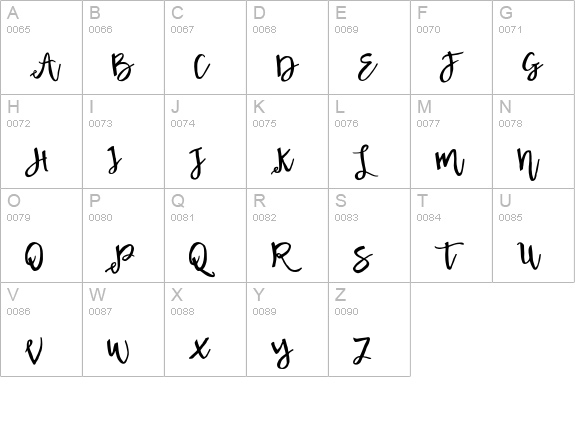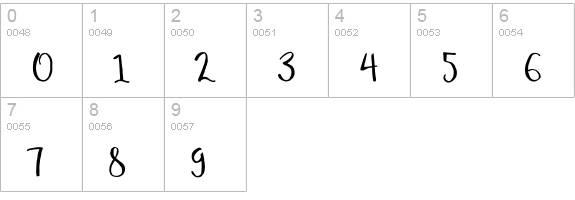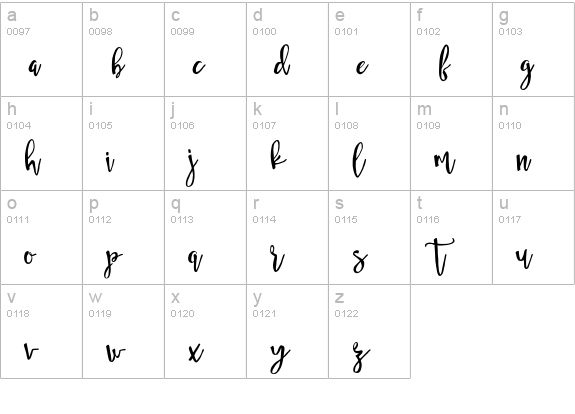
Introducing the exquisite Shingitalis Typeface font, a stunning blend of elegance and modernity. With its bold and sophisticated design, this font is perfect for a wide range of projects, from branding to editorial design. The clean lines and unique shapes of Shingitalis Typeface make it stand out from the crowd, adding a touch of class to any design. What sets Shingitalis Typeface apart is not just its striking appearance, but also the fact that it is completely free to use. Yes, you read that right - this premium font is freely available to download at FontsMarket.com. Whether you're a professional designer looking to elevate your work or a hobbyist seeking to add a touch of flair to your projects, Shingitalis Typeface is the perfect choice for you. Don't miss out on the opportunity to enhance your designs with the beauty and versatility of Shingitalis Typeface. Download it now and let your creativity shine!